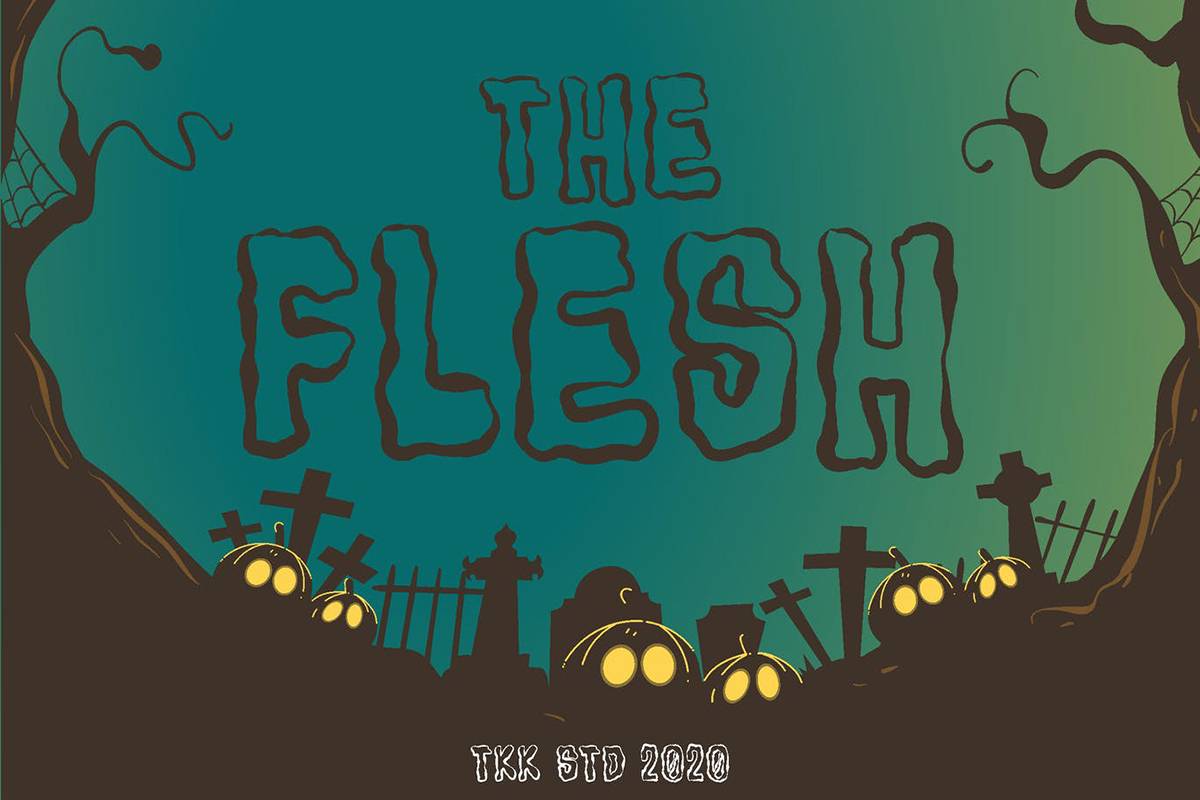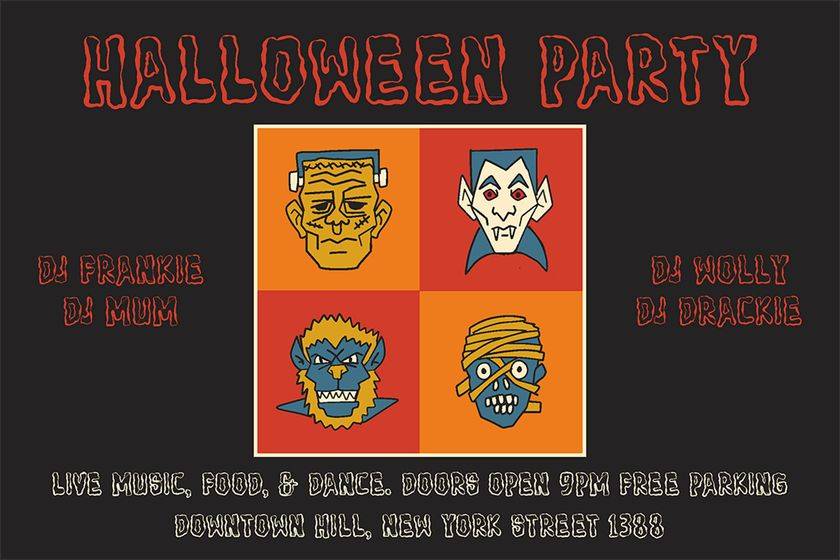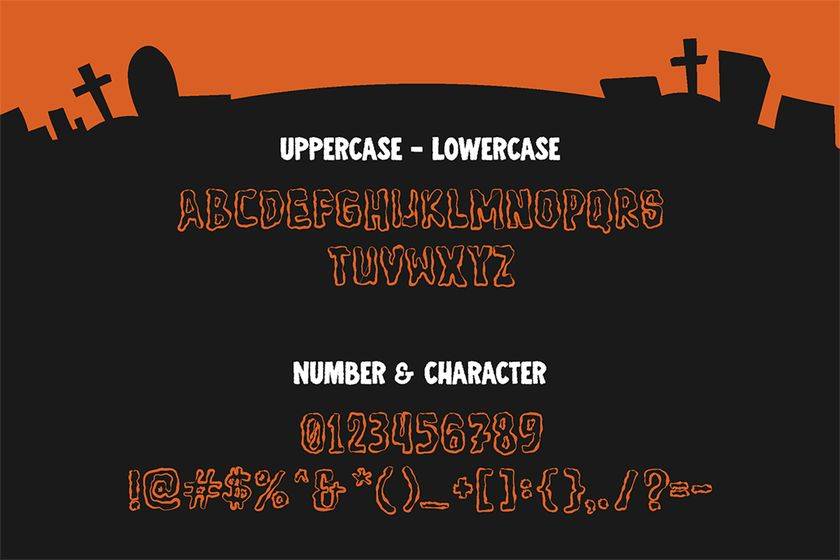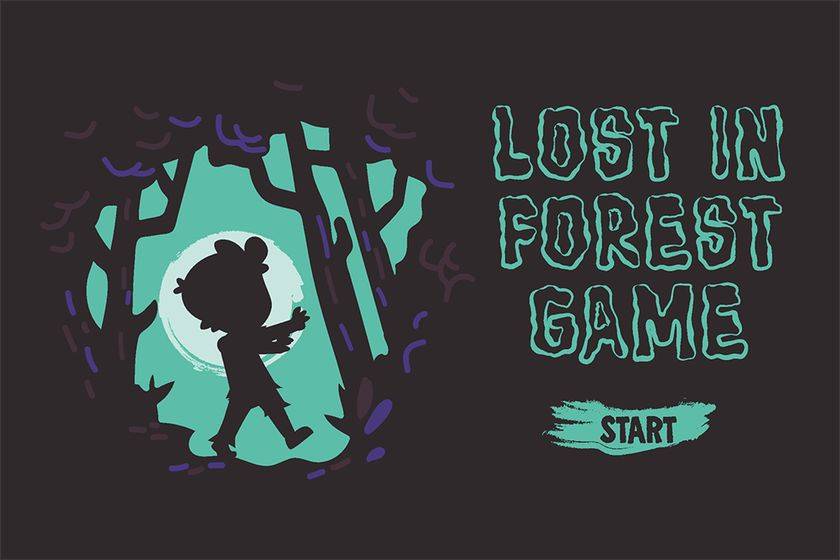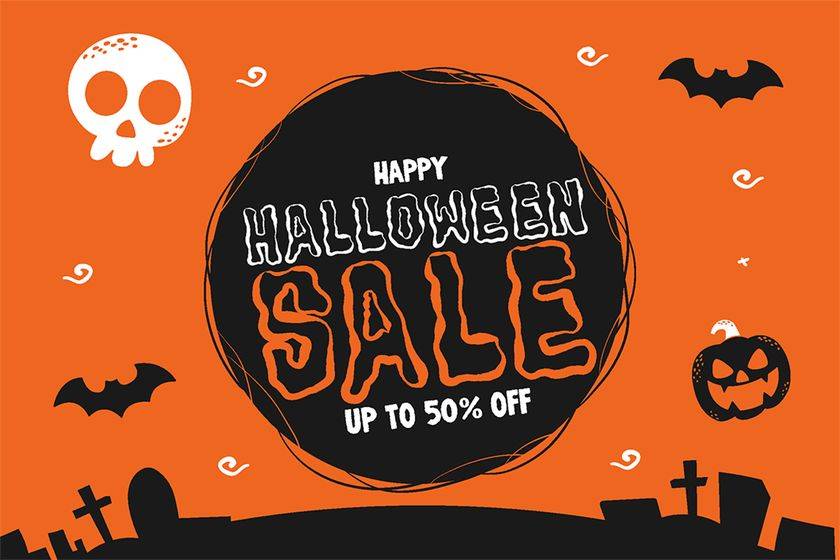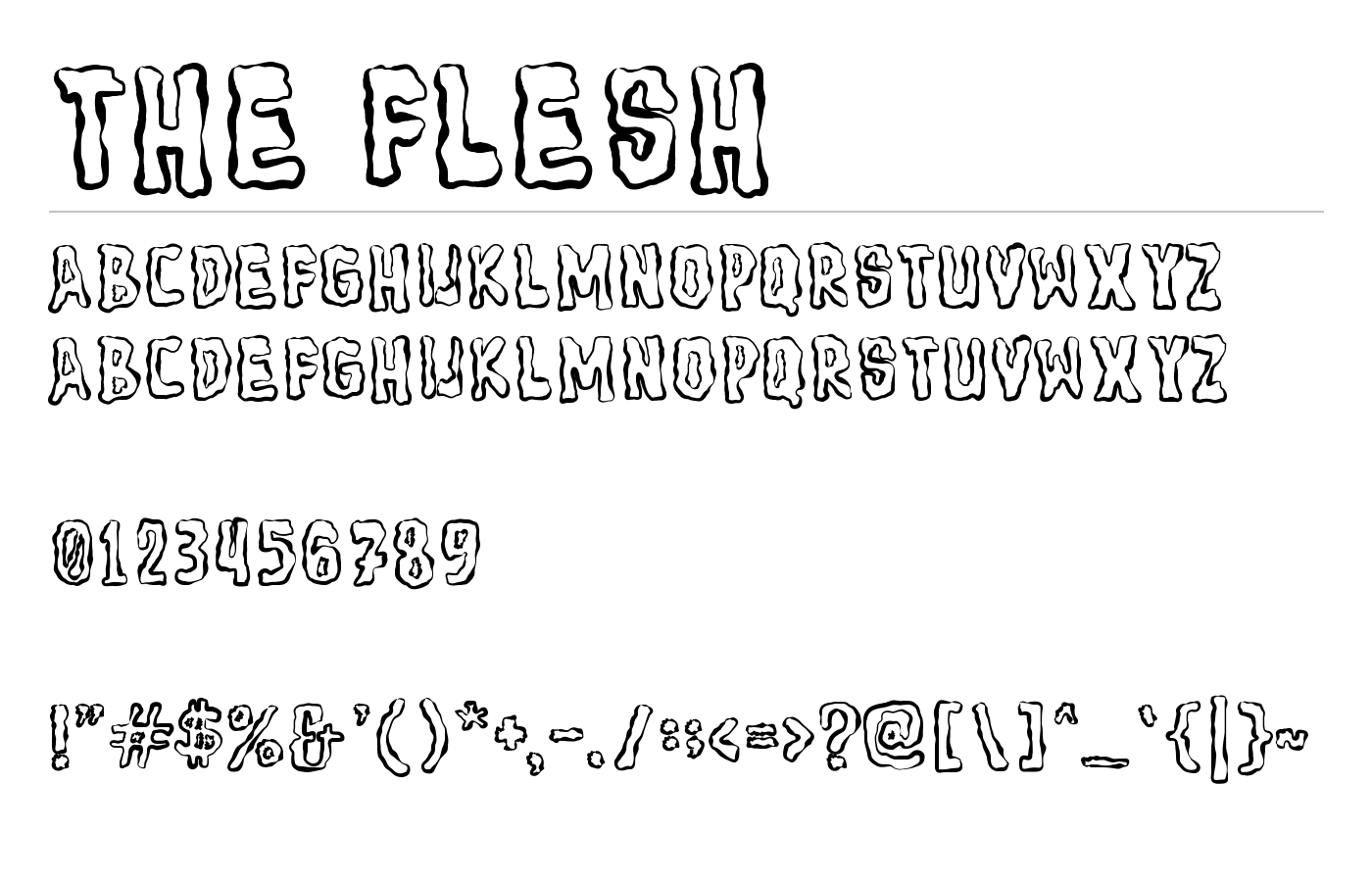
The Flesh Font is a bold and quirky display typeface with irregular, organic shapes that mimic melting or dripping flesh. Its chunky, uneven letterforms create a playful yet eerie vibe, making it perfect for horror-themed designs, Halloween projects, or anything needing a fun and unsettling touch. This font works best in headlines, posters, and creative branding where a strong, eye-catching personality is desired.
The Flesh Font
About The Flesh Font